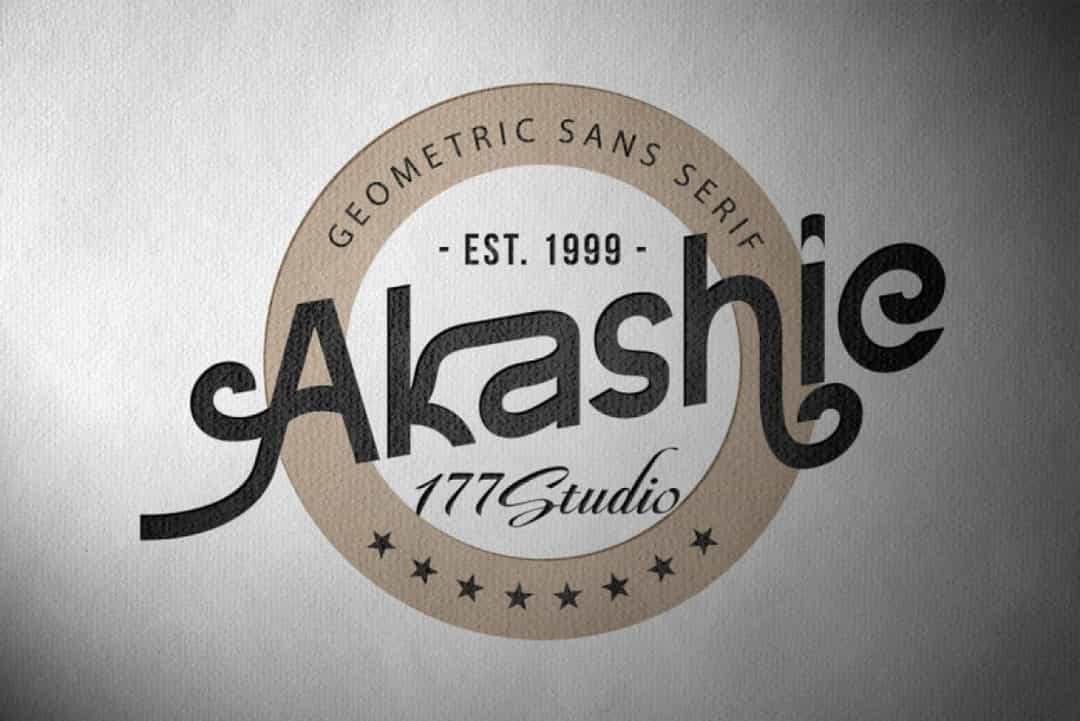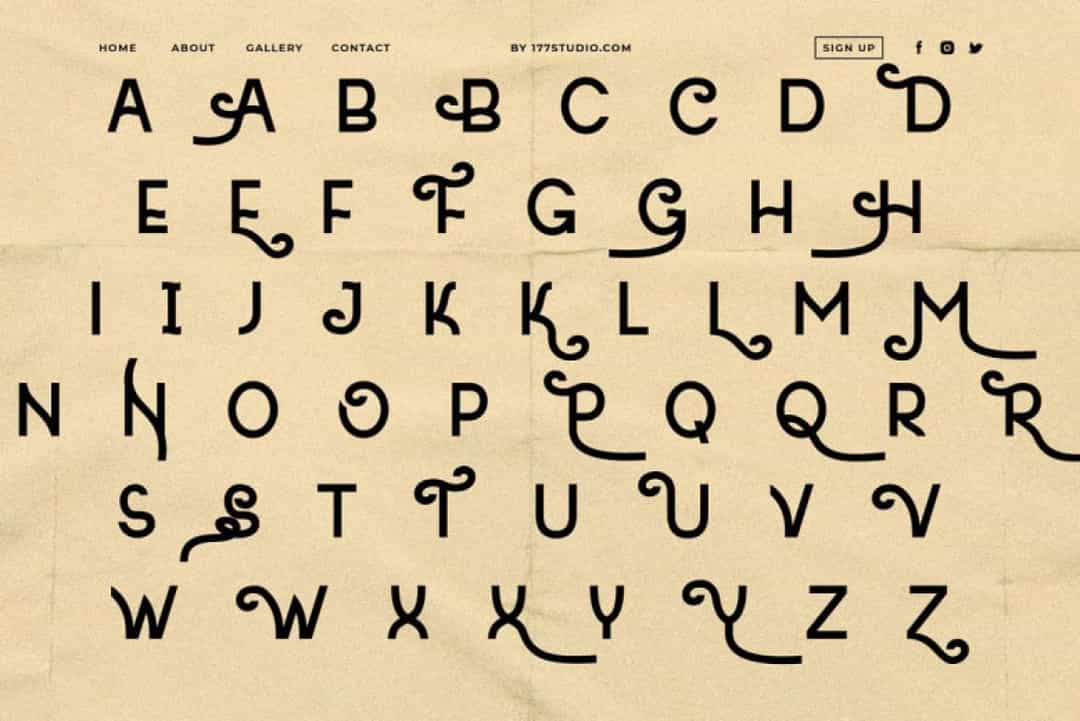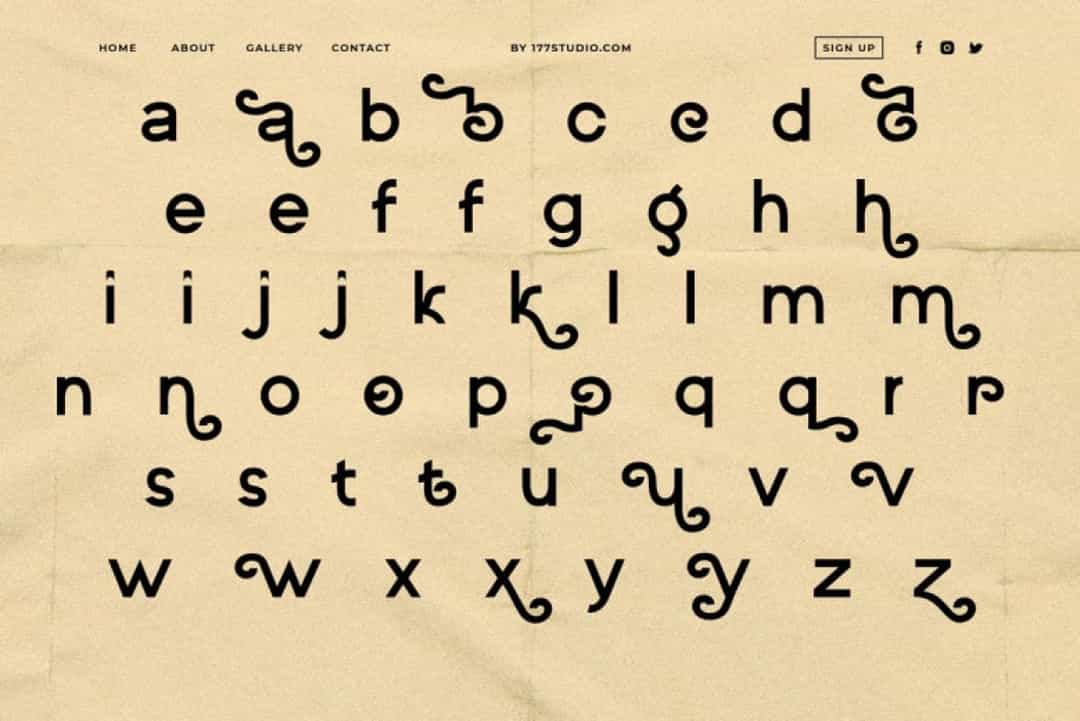
Akashic Sans Serif Font is designed with a sleek, modern, and elegant appearance; its beautiful sans serif font is simple yet striking; featuring additional glyphs and symbols making this font perfect for designs such as wedding invitations T-shirts cards etc.